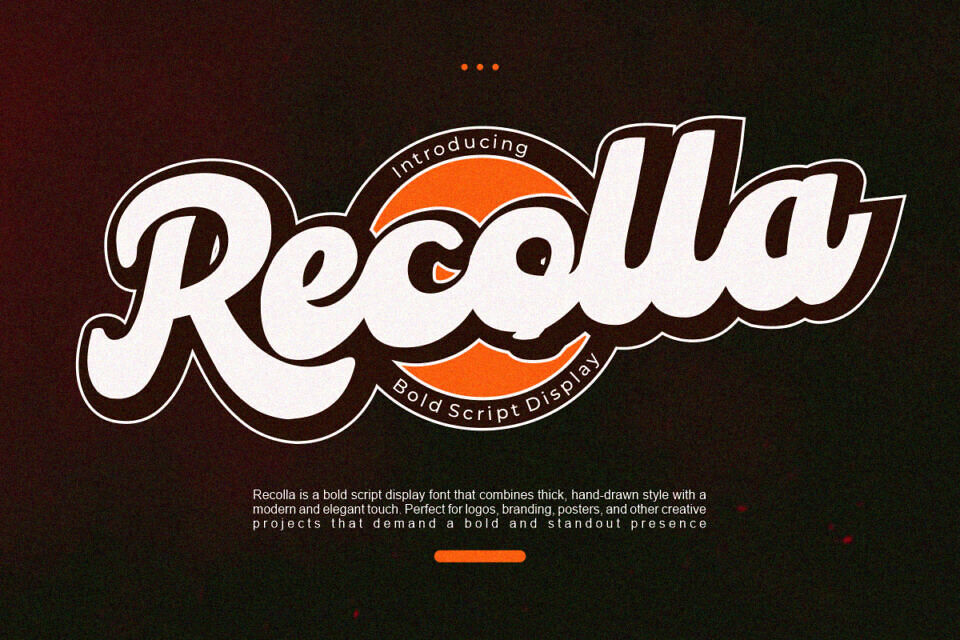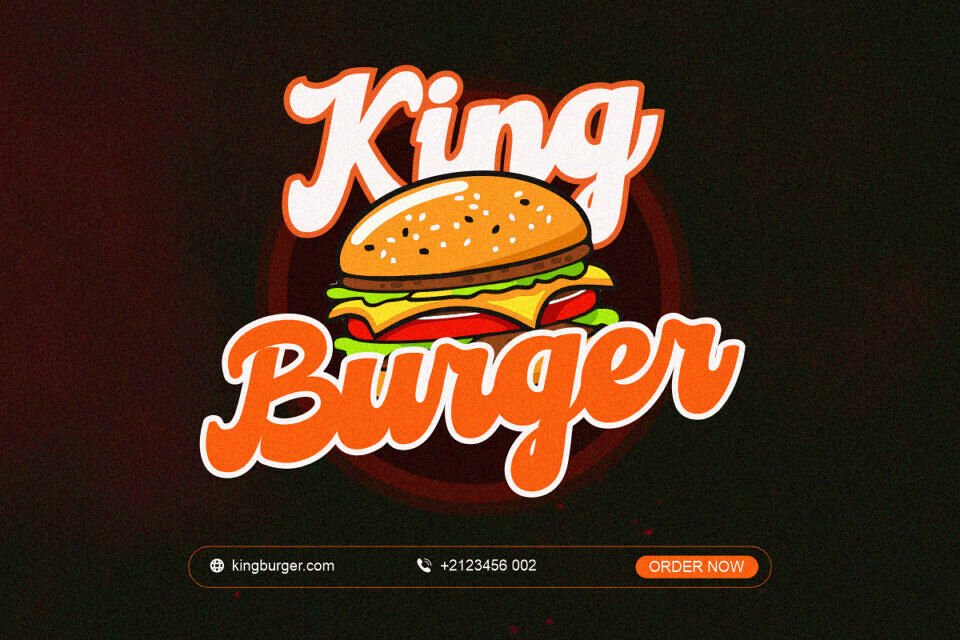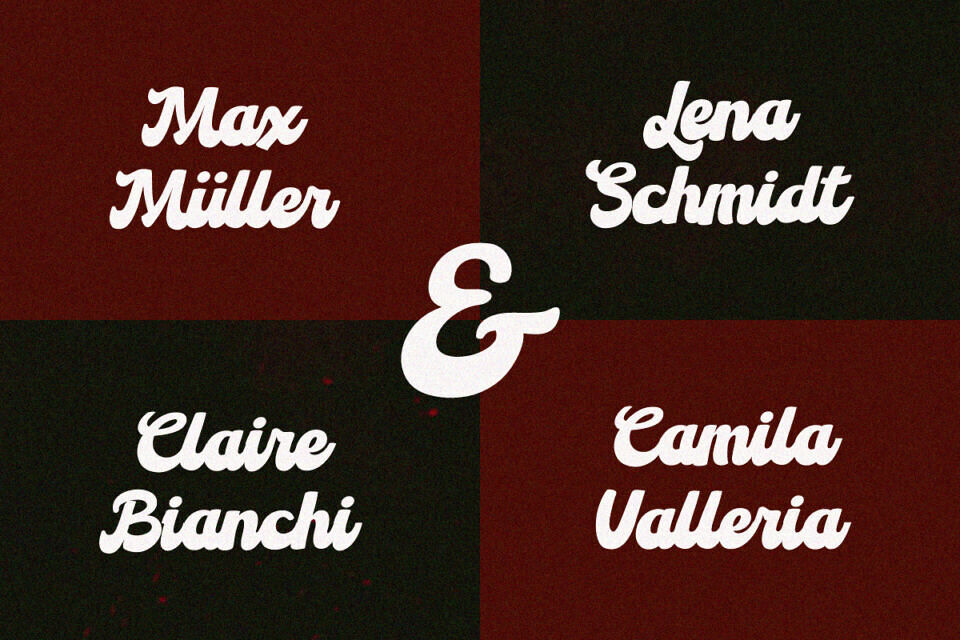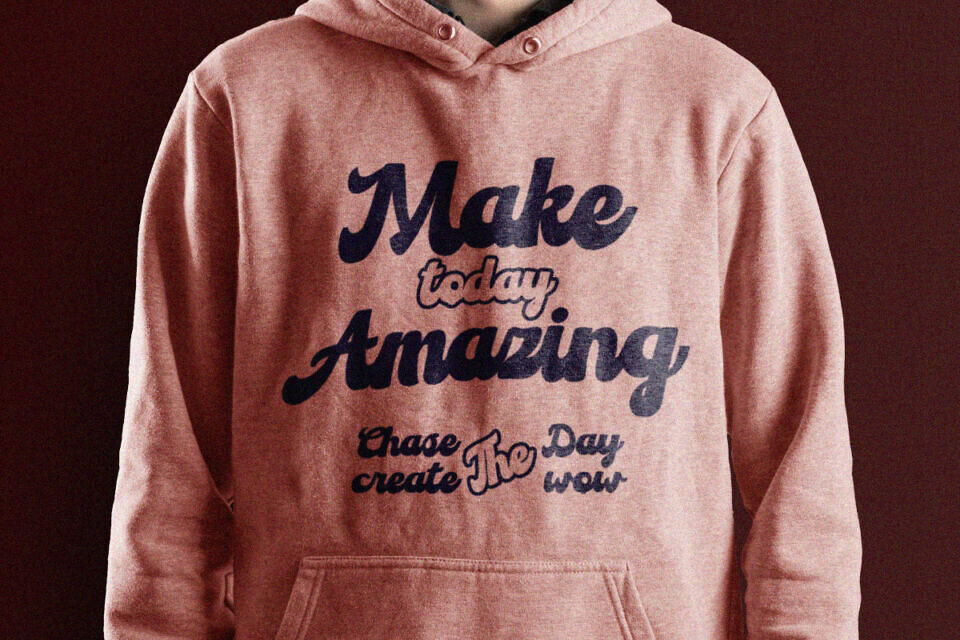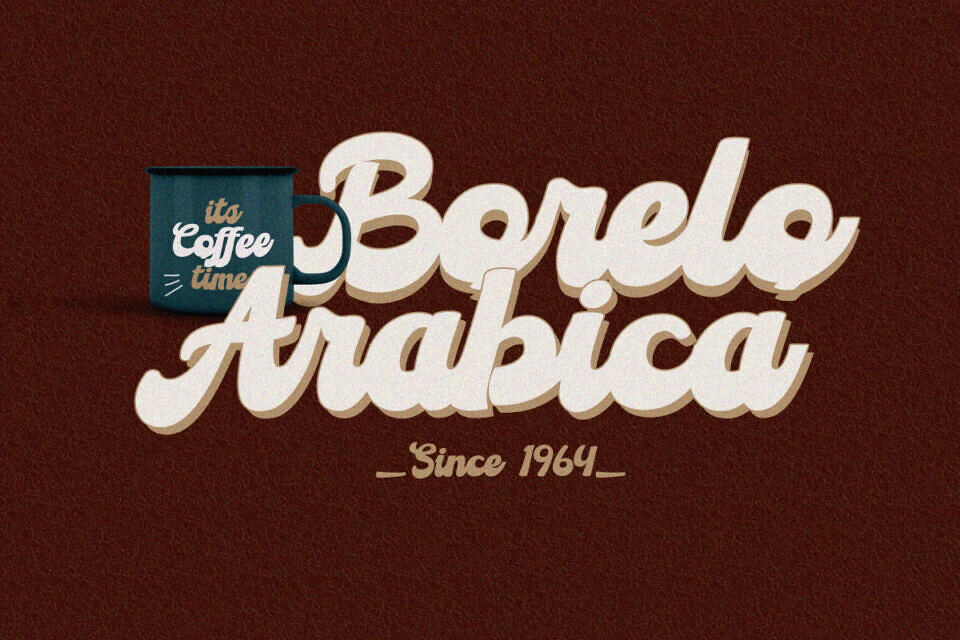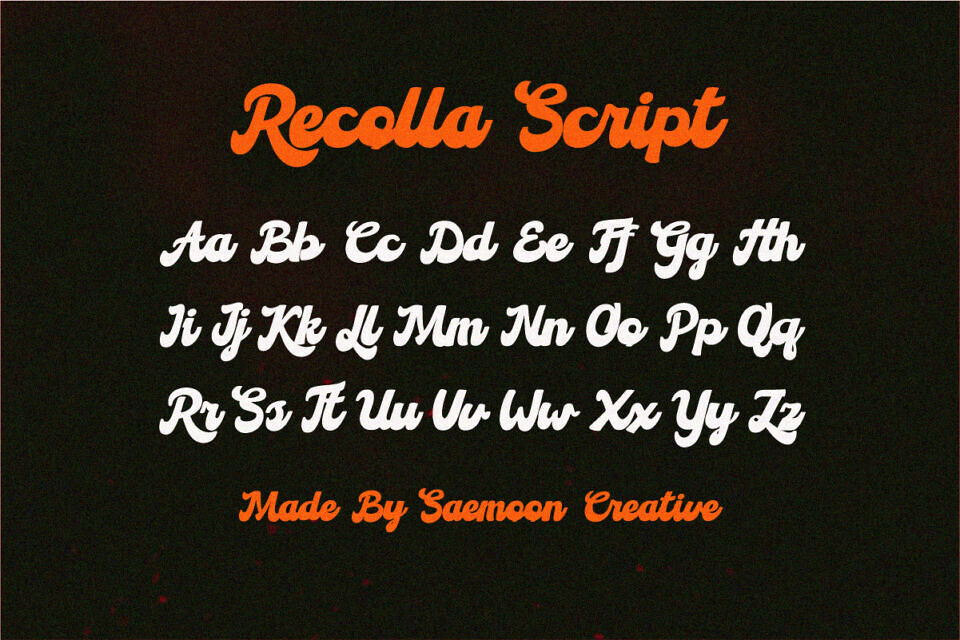
Recolla Bold Font
Recolla is a bold script display font that exudes energy, style, and confidence. Designed with dynamic curves and strong strokes, this font delivers a bold yet elegant impression, making it perfect for eye-catching designs.
Every letter in Recolla flows naturally, adding an authentic handmade touch to your work. Its thick yet flexible shape makes it ideal for logos, branding, packaging, posters, and various creative projects.